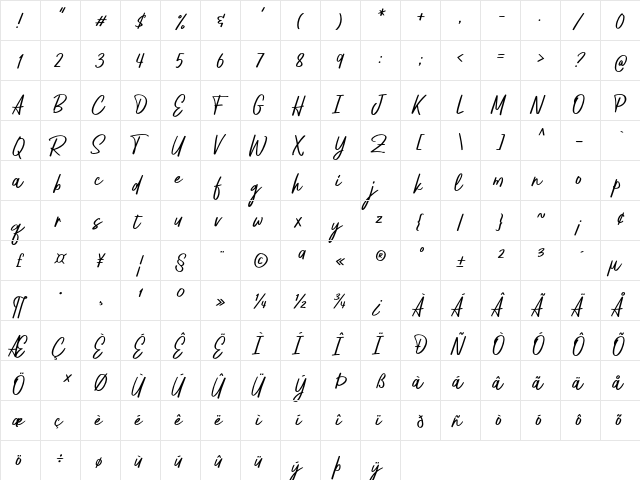
Pestapora Regular
| Foundry | Locomotype |
| Designer | Arwan Sutanto |
Design Context for Pestapora Typeface
Pestapora takes a measured approach to typography — its balanced proportions and neutral character make it a reliable workhorse for both digital and print work.